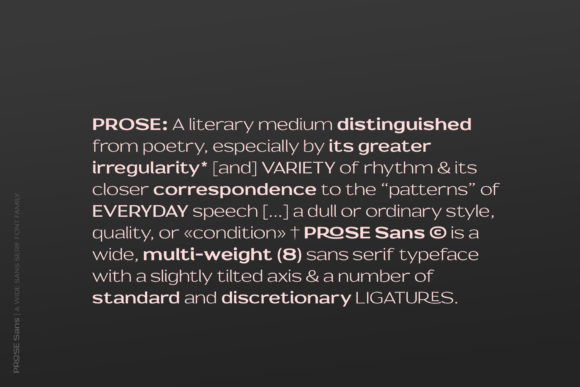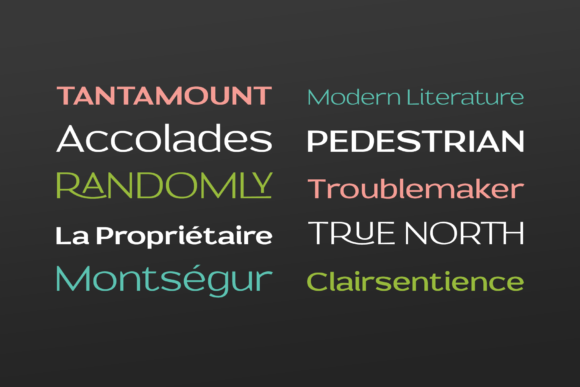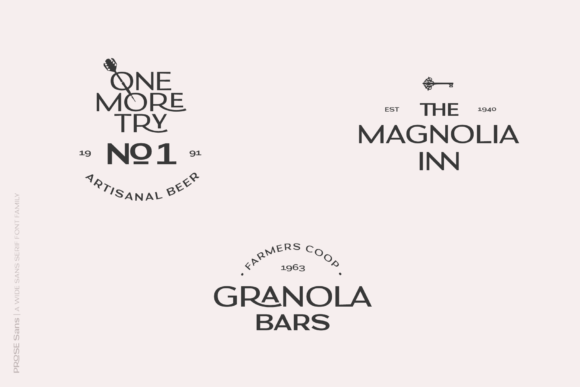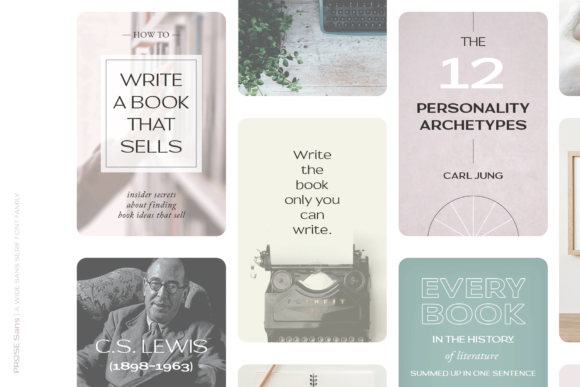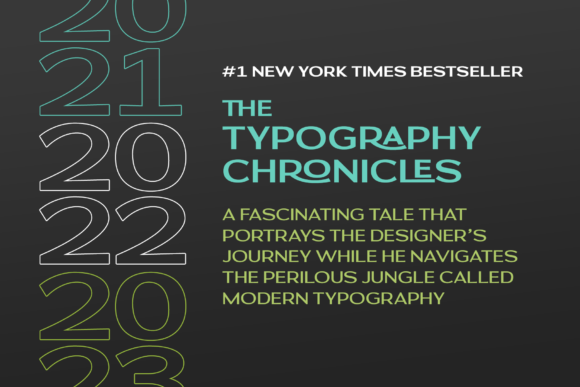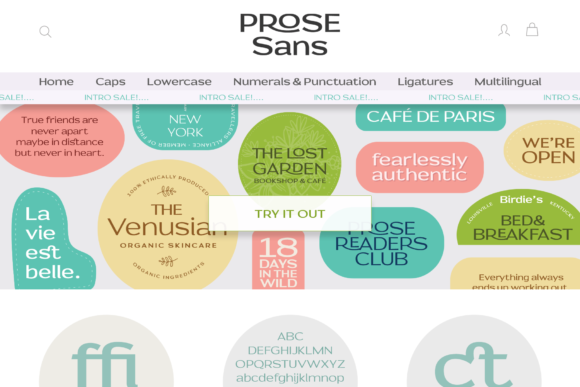
Introduction to Prose Font
Prose is a wide and elegant sans serif font.
The standard and discretionary ligatures help you achieve a more tailored look, excellent for branding, logo, poster design and more Prose is PUA encoded which means you can access all of the glyphs and swashes with ease.